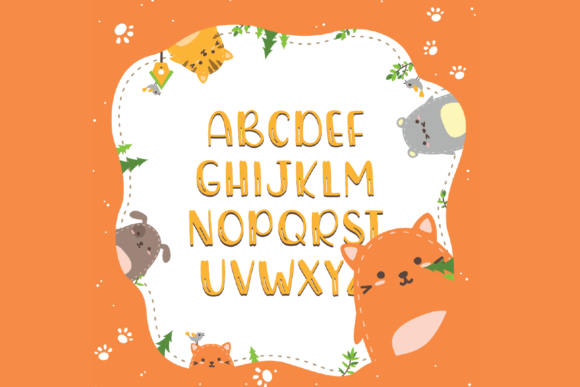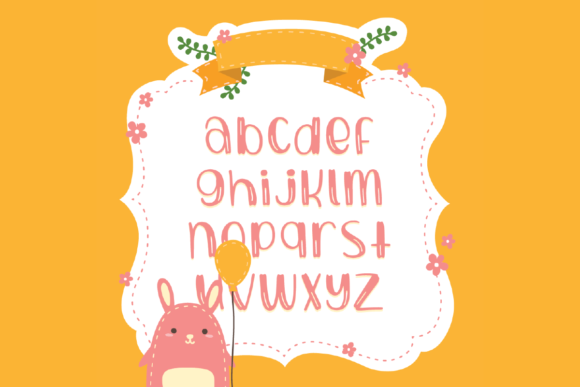
Unleashing the Joy of Design: Introducing the Bubbly Cute Font
Have you ever found yourself scribbling out a playful design idea, only to have it come to life in a way that’s even more delightful than you imagined? That’s the magic of creative expression, and it’s exactly what the Bubbly Cute Font is designed to capture.
This charming display font is perfect for designers who want to add a touch of whimsy and friendliness to their projects. Whether you’re working on a cartoon, a children’s game, or just a creation that needs a little extra love, the Bubbly Cute Font is an amazing choice. Its playful curves and bubbly personality make it a valuable asset for designers looking to add a little extra joy to their designs.
With the Bubbly Cute Font, you’ll be able to bring a smile to people’s faces and create designs that are truly one-of-a-kind. So why settle for a generic font when you can unleash the joy of design with the Bubbly Cute Font?
Bubbly Cute Font Key Features
- Font Family: Bubbly Cute Font is a sans-serif font family that offers a playful and cute appearance.
- Character Set: The font includes a wide range of characters, including uppercase and lowercase letters, numbers, and punctuation marks.
- Unique Characteristics: The font features a unique bubble-like design, with rounded edges and a soft, cursive feel, making it perfect for creating playful and whimsical designs.
Bubbly Cute Font Review
I’ve had the chance to play around with the Bubbly Cute Font, and I must say it’s quite the character. ✨ The whimsical feel and rounded edges give it a delightful, playful vibe that’s perfect for child-friendly projects, social media graphics, or even wedding invitations.
- Wide range of language support, making it suitable for global projects
- Highly legible, even at smaller font sizes
However, I do have some reservations about the Bubbly Cute Font. ⚠️ The font can feel a bit too saccharine for more serious or professional projects, and some users may find the rounded edges too distracting. Additionally, the font’s width can become a bit inconsistent at larger font sizes, which might affect the overall design’s balance.
Overall, the Bubbly Cute Font is a fun, lighthearted option for designers looking to add a touch of whimsy to their projects. While it may not be the best choice for every design scenario, it’s certainly a great option for those who want to inject a bit of personality into their work.
The Bubbly Cute Font is perfect for creating playful and whimsical designs, such as:
1. Children’s party invitations and decorations.
2. Social media graphics and ads.
3. Cartoon and comic book illustrations.
4. Wedding and baby shower invitations.
Remember to use the font in moderation and balance it with other design elements to avoid overwhelming the viewer.